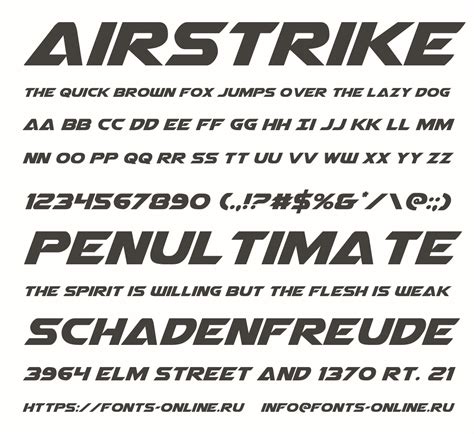
Hey guys! Ever wanted to create text that looks like it’s straight out of an action movie, maybe something that screams airstrike ? Well, you’re in luck! An airstrike font generator is a fantastic tool that allows you to transform ordinary text into visually stunning designs reminiscent of military or combat themes. These generators are super easy to use and offer a wide range of customization options to make your text stand out. Whether you’re designing a logo, creating graphics for a game, or just want to add some flair to your social media posts, an airstrike font generator can help you achieve that bold and impactful look.
These tools often come with various features such as different font styles, color options, and effects. You can adjust the size, rotation, and even add shadows or outlines to your text. Some advanced generators also allow you to upload your own fonts or create custom color palettes. The possibilities are endless! The goal is to give you the creative freedom to design text that perfectly matches your vision. Airstrike fonts typically feature sharp, angular designs with a rugged, industrial feel. They often incorporate elements that evoke a sense of power, speed, and precision. Think of fonts with bold, blocky letters or distressed textures that mimic the look of stenciled military markings. These fonts are perfect for creating a sense of urgency and excitement.
Now, why would you even want to use an airstrike font generator? There are tons of reasons! For starters, they’re incredibly useful for gaming enthusiasts. Imagine designing a clan logo or creating in-game graphics with a font that perfectly captures the intensity of battle. Airstrike fonts can add a whole new level of immersion to your gaming experience. They are also great for graphic designers. If you’re working on a project that requires a strong, attention-grabbing typeface, an airstrike font can be a game-changer. These fonts are perfect for posters, banners, and other promotional materials. Moreover, content creators can also leverage airstrike fonts to enhance their videos, presentations, and social media content. A well-designed title or caption can make a huge difference in capturing your audience’s attention. So, if you’re looking to add some visual punch to your projects, give an airstrike font generator a try. You might be surprised at how much of an impact it can make!
Where to Use Airstrike Fonts
Alright, now that you know how to create airstrike fonts, let’s talk about where you can actually use them! The possibilities are pretty much endless, but here are some of the most popular and effective applications. First , think about gaming. Airstrike fonts are perfect for creating logos, banners, and other graphics for gaming clans, teams, and communities. They can also be used to design in-game text, such as mission briefings, scoreboards, and character names. The bold and aggressive look of airstrike fonts can add a sense of excitement and intensity to your gaming experience.
Second , consider graphic design. Airstrike fonts are a great choice for posters, flyers, and other promotional materials. They can be used to create eye-catching headlines, call-to-actions, and logos. The rugged and industrial feel of airstrike fonts can help your designs stand out from the crowd. Third , let’s dive into video and film. If you’re creating a video game trailer, action movie intro, or even a cool YouTube video, airstrike fonts can add a dynamic edge to your titles and captions. They’re especially effective in scenes that require a sense of urgency or military precision. They can also be used in lower thirds, credits, and other on-screen text.
Fourth , let’s talk about social media. In today’s digital age, social media is a powerful tool for reaching a wide audience. Airstrike fonts can be used to create attention-grabbing posts, banners, and profile pictures. They can also be used to design engaging stories and reels. Just remember to use them sparingly and in a way that complements your overall brand. Fifth , think about merchandise. Airstrike fonts can be used to design logos, slogans, and other graphics for t-shirts, hats, and other merchandise. They’re especially popular among gamers, military enthusiasts, and anyone who appreciates a bold and edgy design. By incorporating airstrike fonts into your merchandise, you can create products that stand out and make a statement. These fonts can be used for creating book covers, chapter titles, and other design elements. If you’re writing a thriller, action, or military-themed book, an airstrike font can help capture the tone and mood of your story. So, as you can see, airstrike fonts are incredibly versatile and can be used in a wide range of applications. Whether you’re a gamer, graphic designer, video editor, or social media influencer, airstrike fonts can help you create designs that are both visually stunning and highly effective. So go ahead, experiment with different fonts and see how they can enhance your projects!
Tips for Using Airstrike Fonts Effectively
So you’re all set to use airstrike fonts, but here are a few tips to help you use them effectively. Using any font well means understanding its strengths and weaknesses. First off , readability is key! While airstrike fonts are great for making a statement, they’re not always the easiest to read. So, make sure to use them in a way that doesn’t sacrifice readability. Avoid using airstrike fonts for large blocks of text or small font sizes. Instead, use them for headlines, titles, and other short phrases where the impact is more important than readability. Next , consider the context. Airstrike fonts are most effective when used in a context that matches their style. For example, they’re perfect for military-themed projects, action-oriented designs, and anything that requires a sense of urgency. However, they might not be the best choice for more delicate or feminine designs.
In conclusion, an airstrike font generator is a powerful tool that can help you create visually stunning text for a wide range of applications. Whether you’re designing a logo, creating graphics for a game, or just want to add some flair to your social media posts, an airstrike font generator can help you achieve that bold and impactful look. With a wide range of customization options and easy-to-use interfaces, these generators make it simple to transform ordinary text into eye-catching designs. So, if you’re looking to add some visual punch to your projects, give an airstrike font generator a try. You might be surprised at how much of an impact it can make! Remember to experiment with different fonts, colors, and effects to create a unique and personalized design. And don’t forget to follow the tips for using airstrike fonts effectively to ensure that your text is both visually appealing and easy to read. With a little creativity and experimentation, you can create designs that stand out and make a lasting impression. So go ahead, unleash your inner designer, and see what you can create with an airstrike font generator!